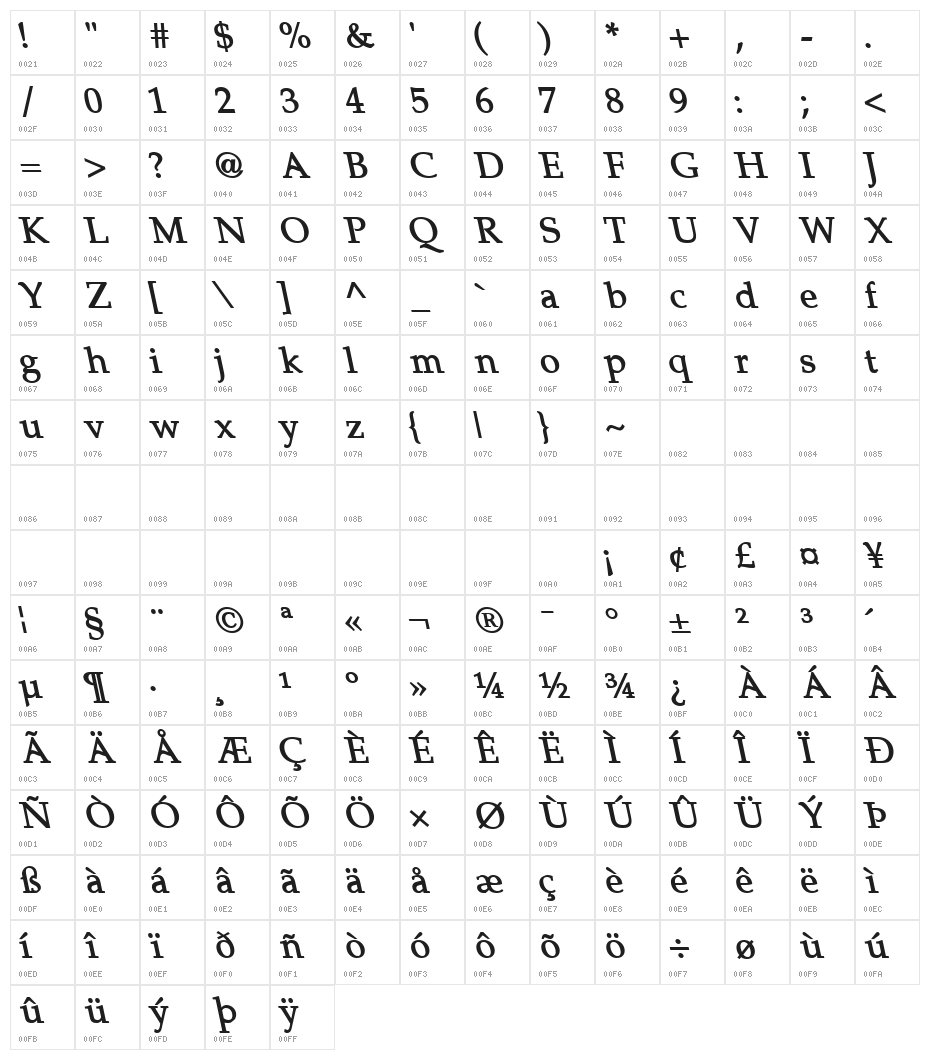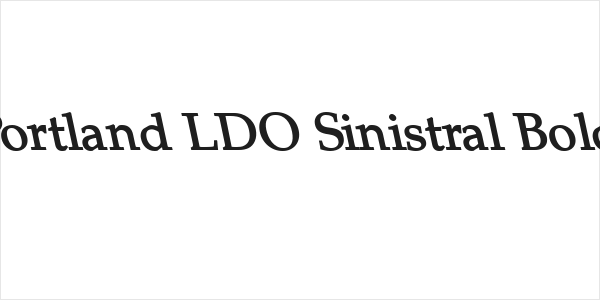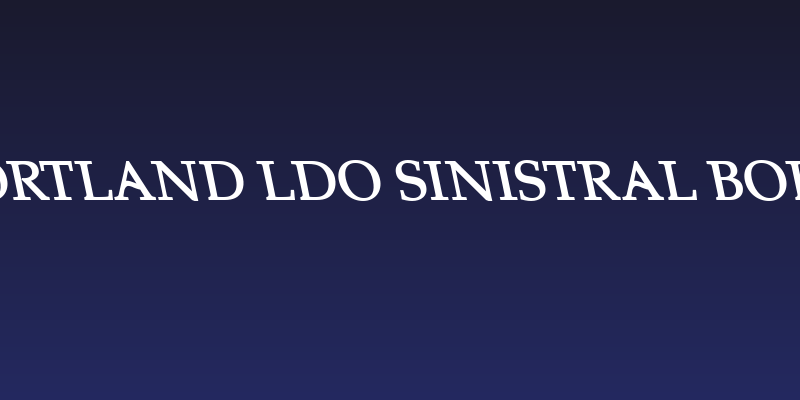
Portland LDO Sinistral Bold Font
Portland LDO Sinistral Bold Description
This font features a bold and confident serif style with a slight slant, giving it a dynamic and forward-moving appearance. The uppercase letters are strong and commanding, while the lowercase letters maintain a consistent weight and balance. The numerals are clear and easily distinguishable, making them suitable for various applications. Special characters are well-integrated, maintaining the overall aesthetic of the font. The strokes are consistent in width, providing a uniform look across all characters. This font's design is both classic and modern, making it versatile for a wide range of uses.
| Use Case | Headlines, Logos, Editorial design |
| Proposed Projects | Ideal for branding, editorial design, headlines, and signage where a strong and sophisticated presence is desired. |